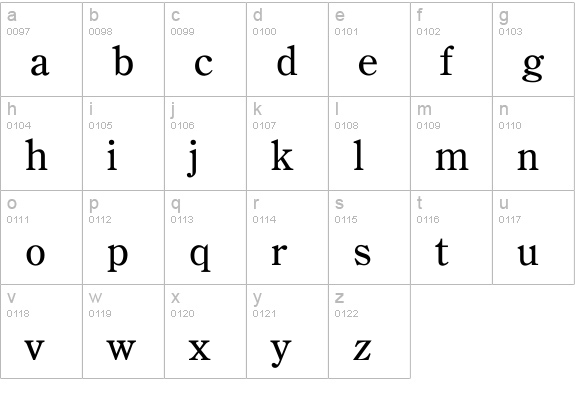
CenturyOldStyle-Normal Font Details
CenturyOldStyle-Normal is the standard, neutral variant in the CenturyOldStyle typeface family \xE2\x80\x94 well suited to general body text, paragraphs, and standard typographic work.
CenturyOldStyle-Normal font is a classic and elegant typeface that exudes timeless charm and sophistication. With its vintage appeal and traditional styling, this font is perfect for adding a touch of nostalgia to your designs. Its clean lines and balanced proportions make it versatile for a wide range of projects, from invitations to branding to editorial design. The CenturyOldStyle-Normal font is available for free download at FontsMarket.com, making it easily accessible for designers and creatives looking to elevate their work with a touch of old-world charm. Whether you're working on a vintage-inspired project or simply want to add a touch of elegance to your designs, CenturyOldStyle-Normal font is a perfect choice that is both classic and contemporary.